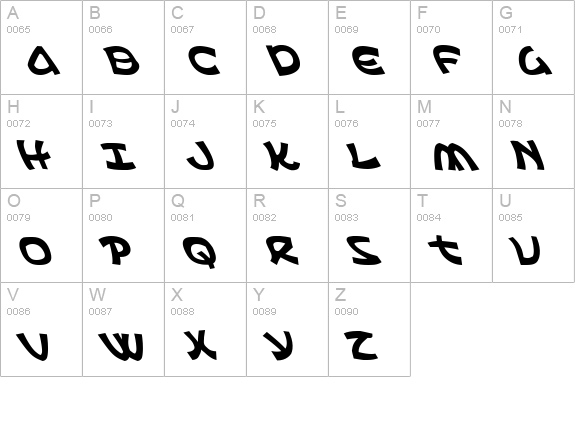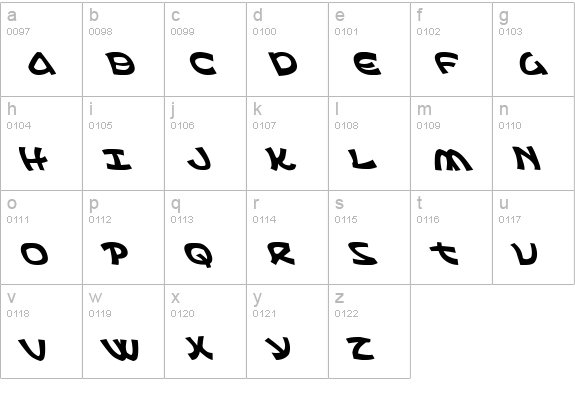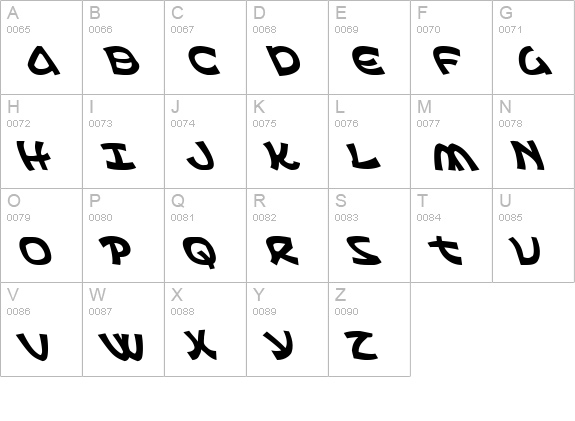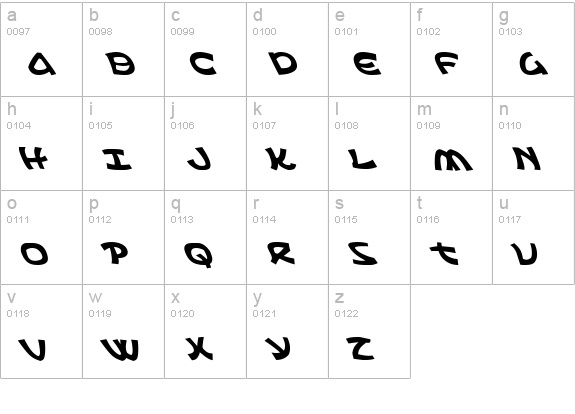
Ephesian Leftalic font is a stunning and elegant typeface that exudes sophistication and style. Its flowing and graceful letterforms make it perfect for adding a touch of class to any design project. The slanted nature of the italicized version adds a dynamic and modern flair, making it versatile for both formal and informal applications. Best of all, Ephesian Leftalic font is available for free download at FontsMarket.com. This means you can easily access this beautiful font and use it in your projects without any cost. Don't miss out on the opportunity to enhance your designs with the timeless beauty of Ephesian Leftalic font.